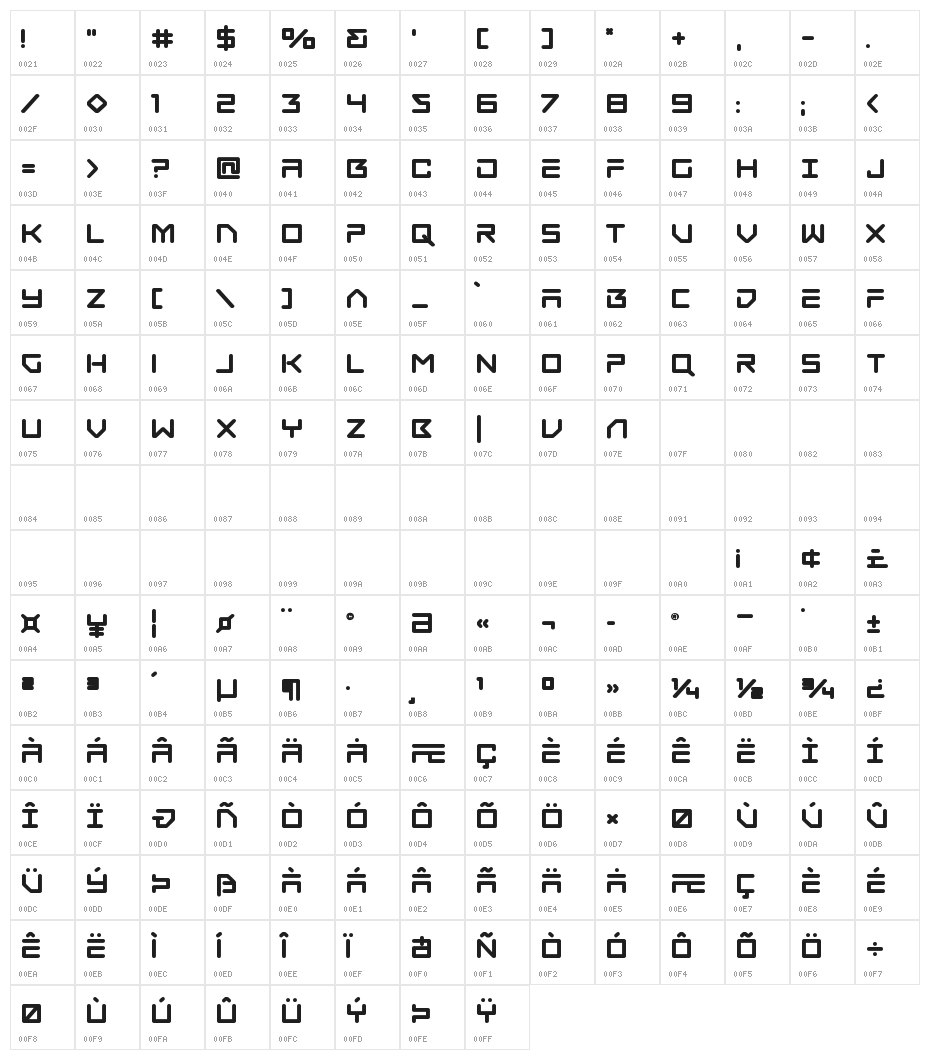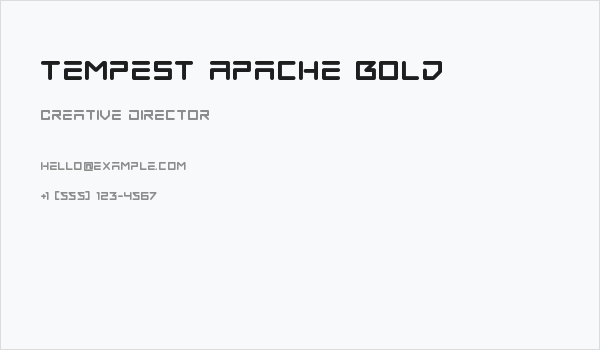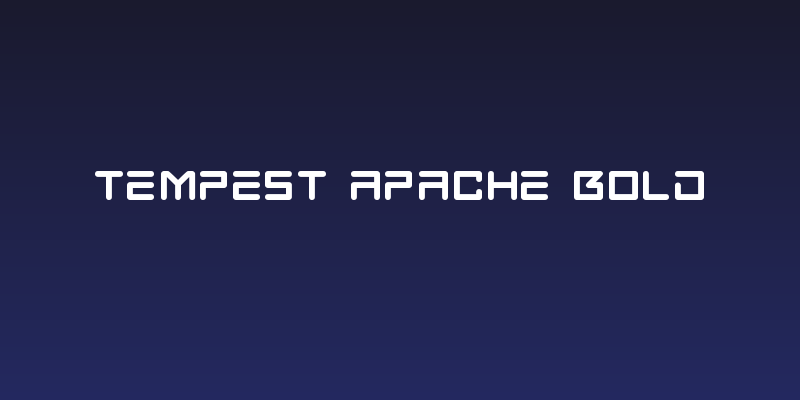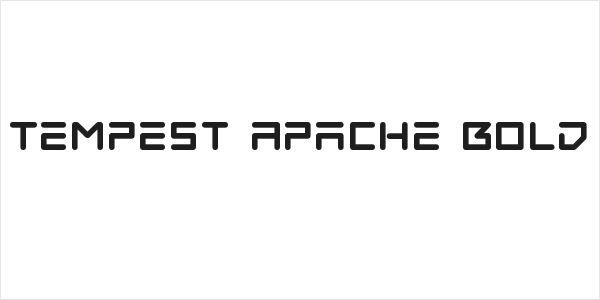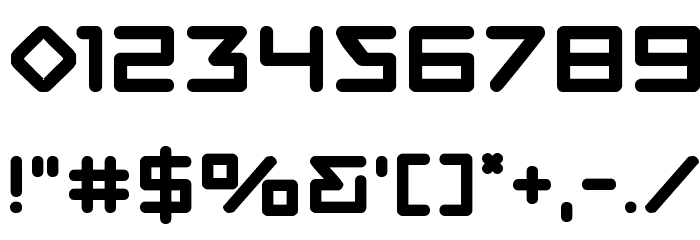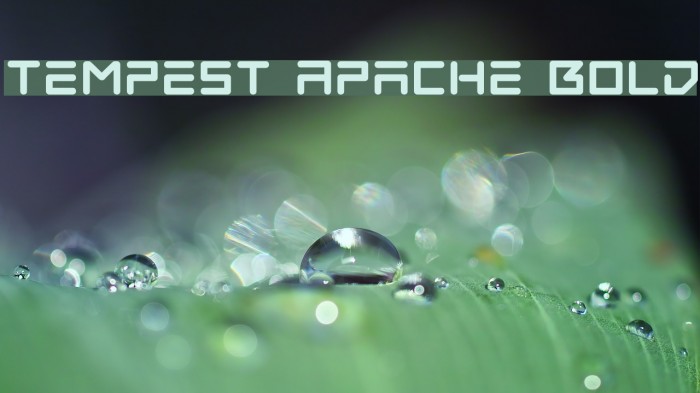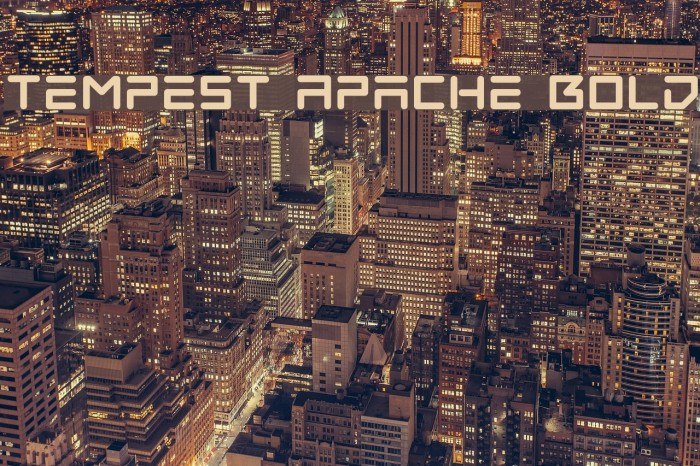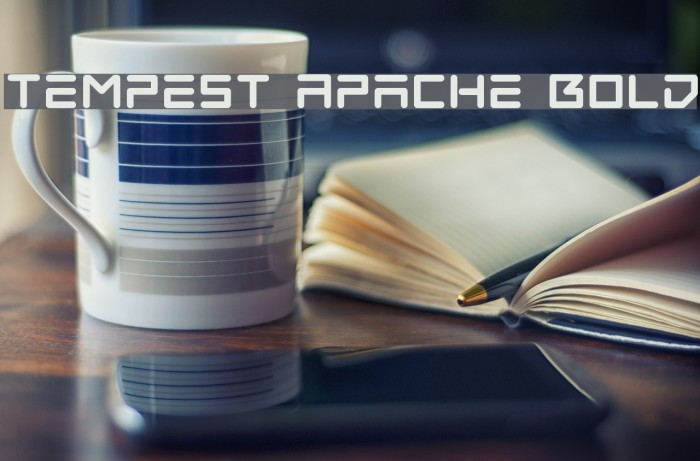
Tempest Apache Bold Font
Tempest Apache Bold Description
This font features a bold, geometric design with a futuristic and tech-inspired aesthetic. The characters are constructed with uniform stroke widths, giving them a strong and consistent appearance. The angular and blocky shapes create a sense of modernity and innovation, making it suitable for digital and technology-related projects. The uppercase and lowercase letters maintain a cohesive style, while the numerals and special characters complement the overall design. The font's clean lines and structured form make it highly legible, even at smaller sizes.